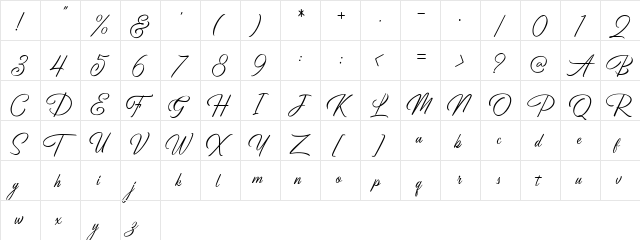
Birmingham Script DEMO Regular
Design Context for Birmingham Script DEMO Typeface
Birmingham Script DEMO flows with the natural rhythm of handwritten lettering, making it ideal for designs that call for warmth and personal expression.
Font Pairing: Combine Birmingham Script DEMO with a simple geometric sans for maximum contrast — the tension between flowing curves and clean structure is a classic typographic pairing.
Pro Tip: Use Birmingham Script DEMO for short runs of text — names, titles, or taglines. Extended body copy in script faces tires the eye quickly.